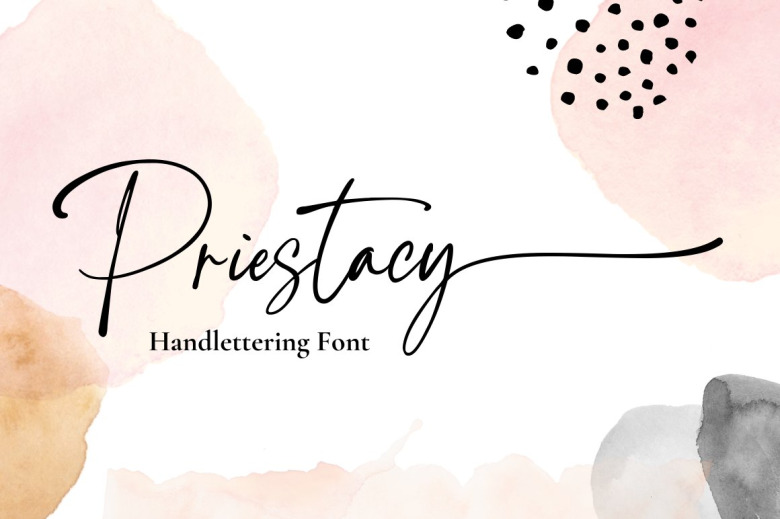
Priestacy Font
Priestacy Handwritten Font, perfect for Branding, Invitation, Stationery, Wedding Designs, Social Media Posts, Advertisements, Product Packaging, Product Designs, Label, Photography, Watermark, Special Events or anything.
Priestacy Handwritten Script Font